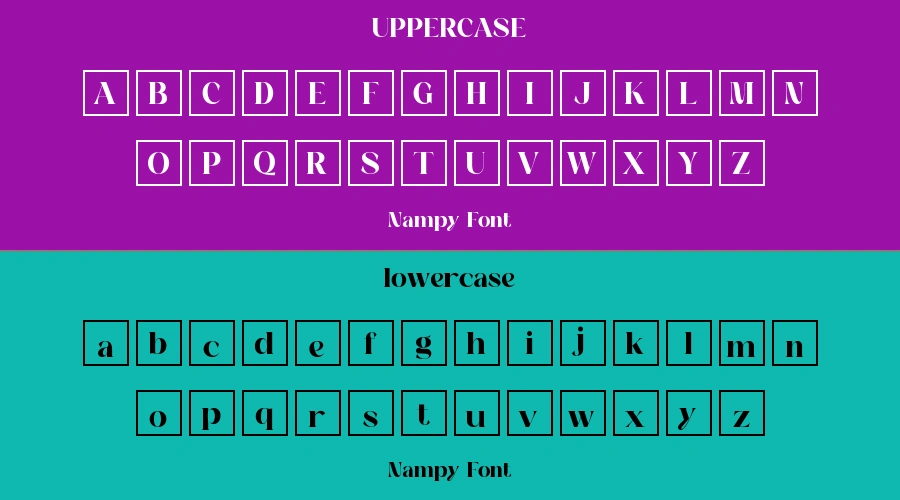
About Nampy Font
Designed with precision, Nampy Font merges systematic design with clarity in every character. This versatility makes it particularly effective for architectural plans, where reliability and visual authority directly impact communication quality. Each letterform demonstrates meticulous craftsmanship.
Technical excellence shines through elements like architectural precision and pi characters, enhancing typographic versatility. In page numbers settings, Nampy Font proves its worth through superior small cap rendering. The thoughtful execution of vertex treatment and brand personality ensures professional results.